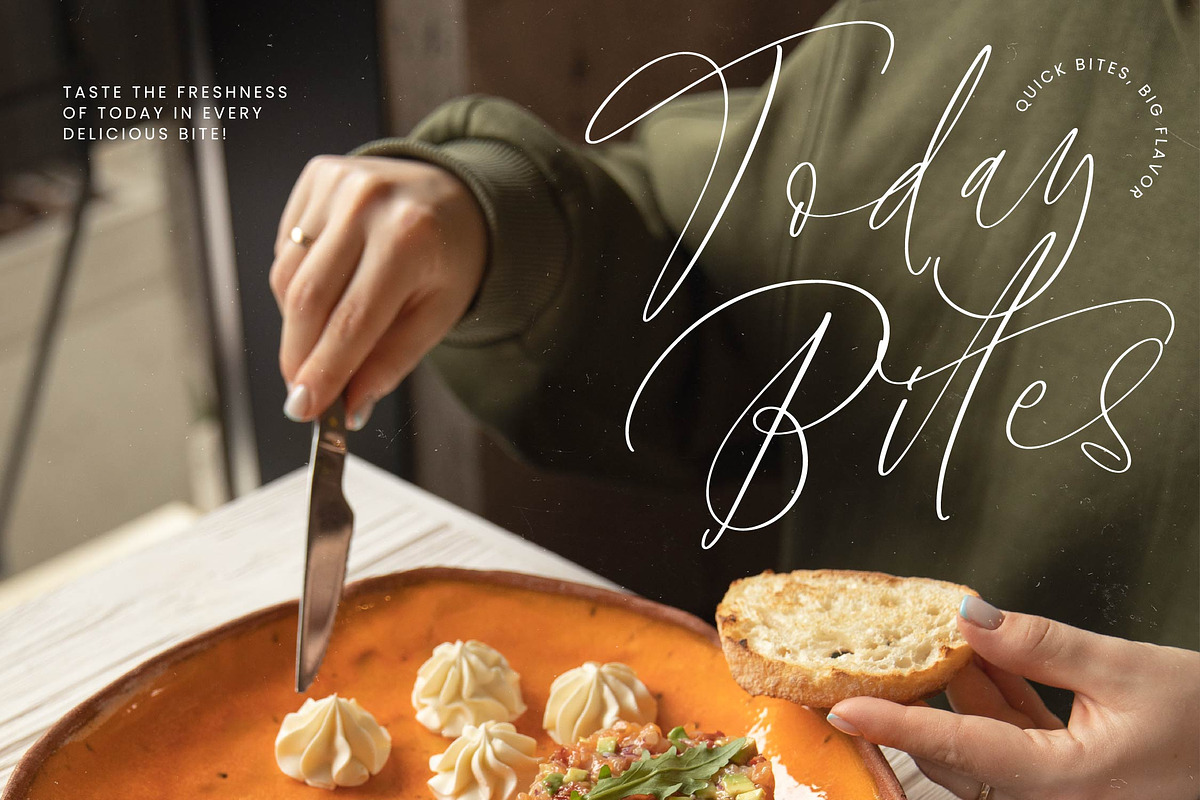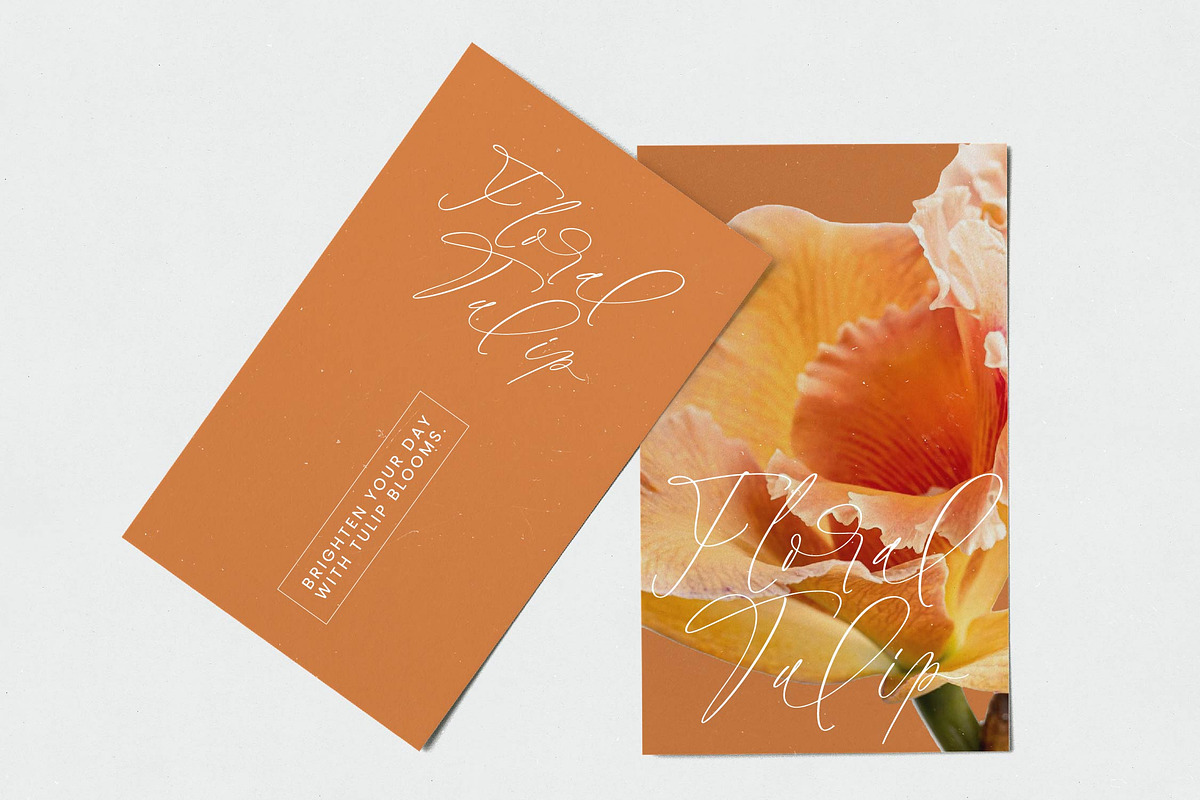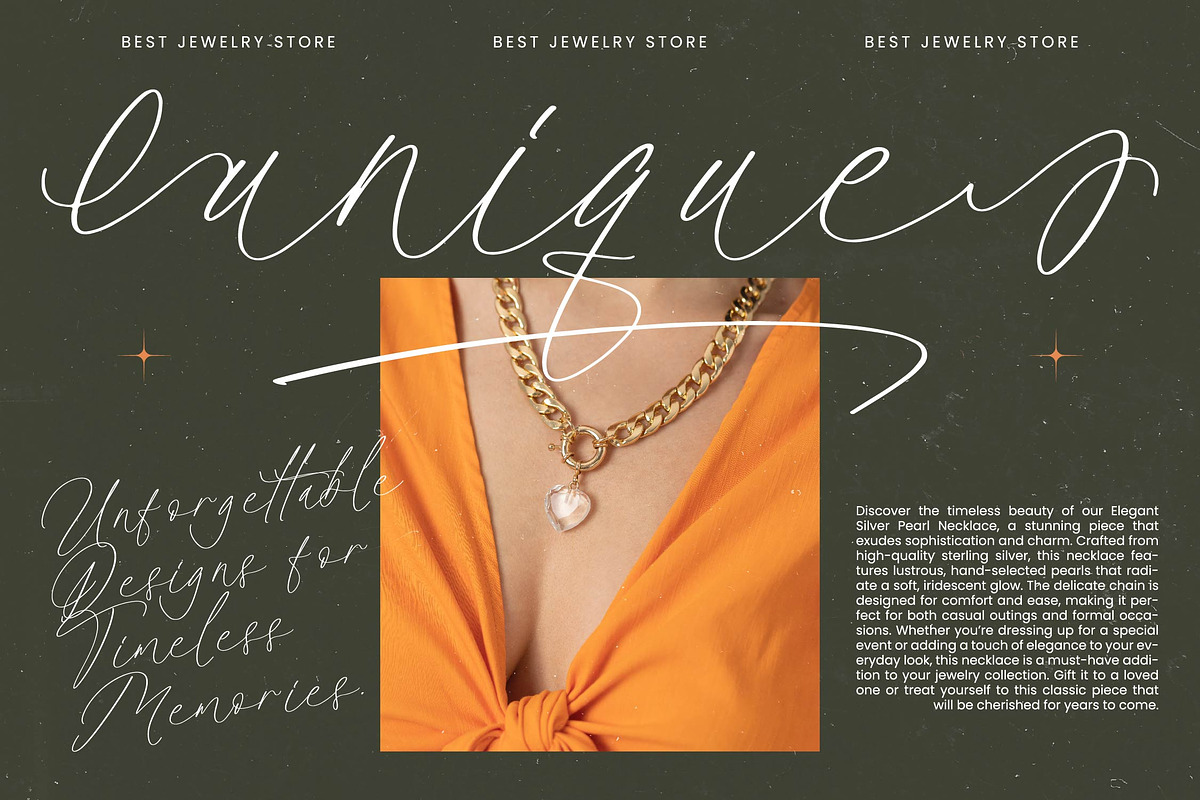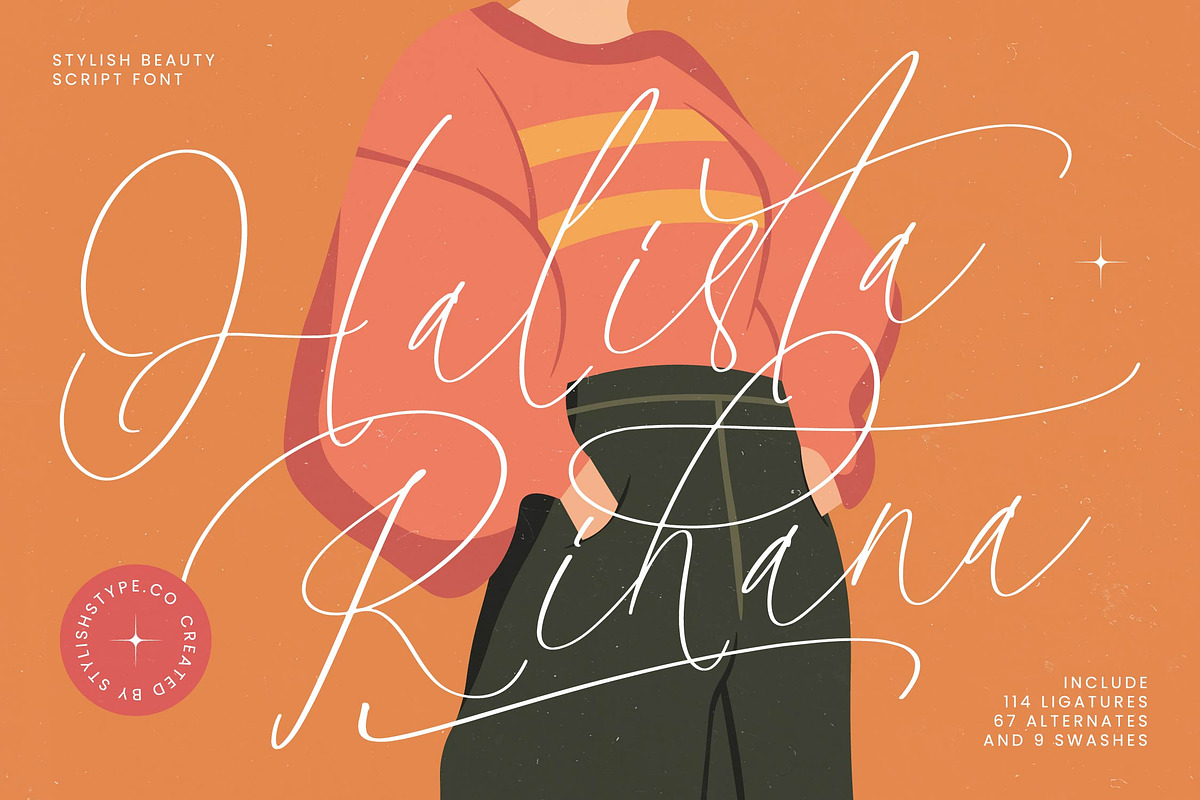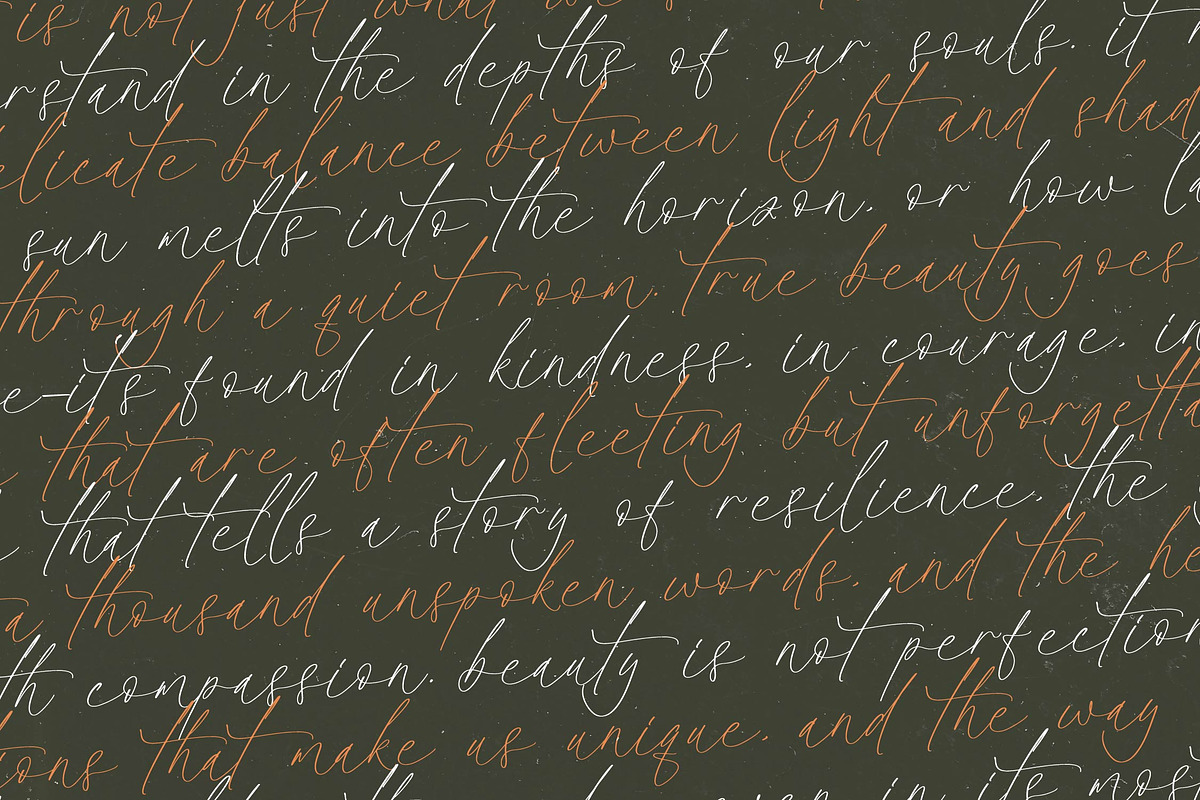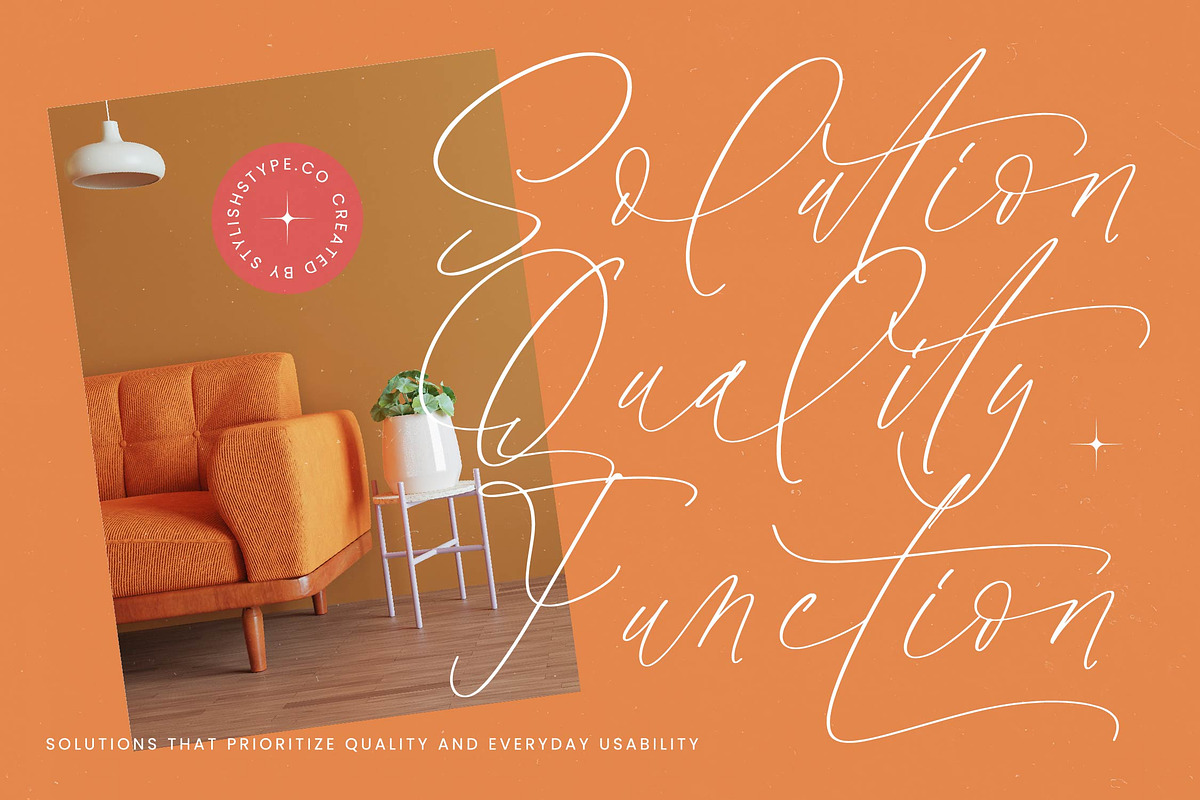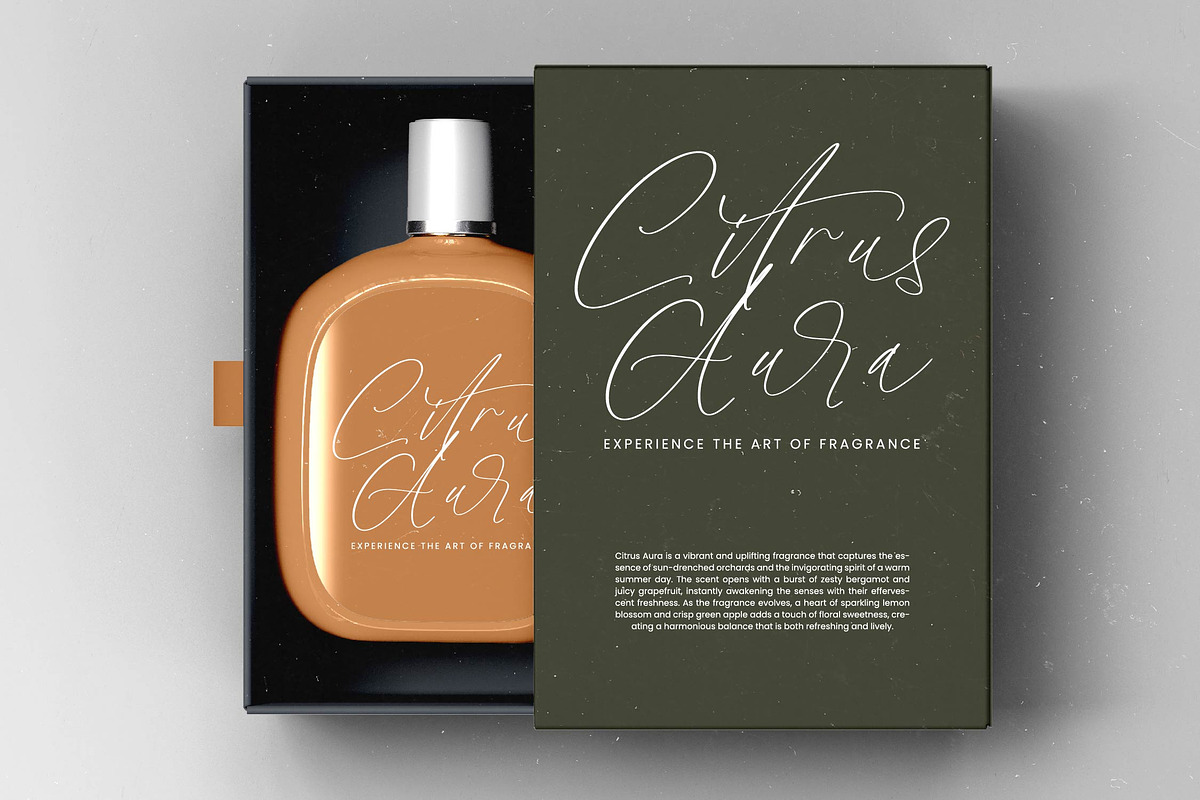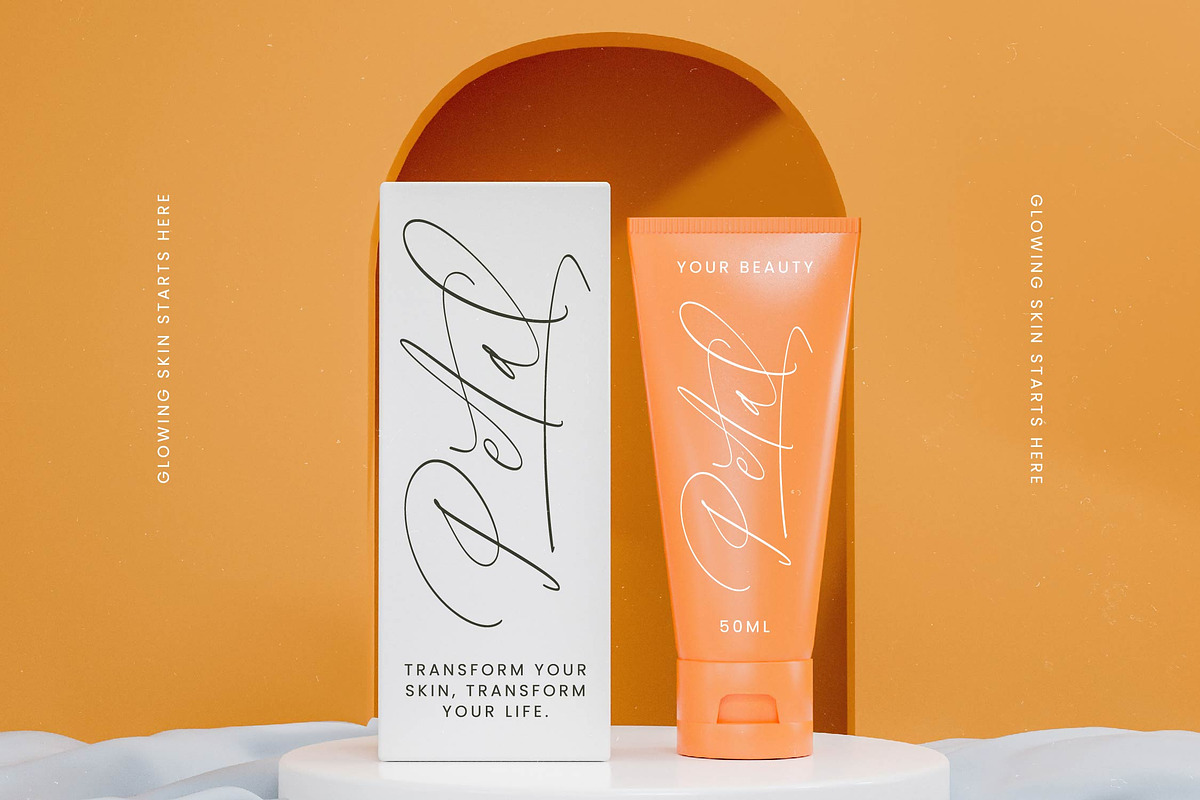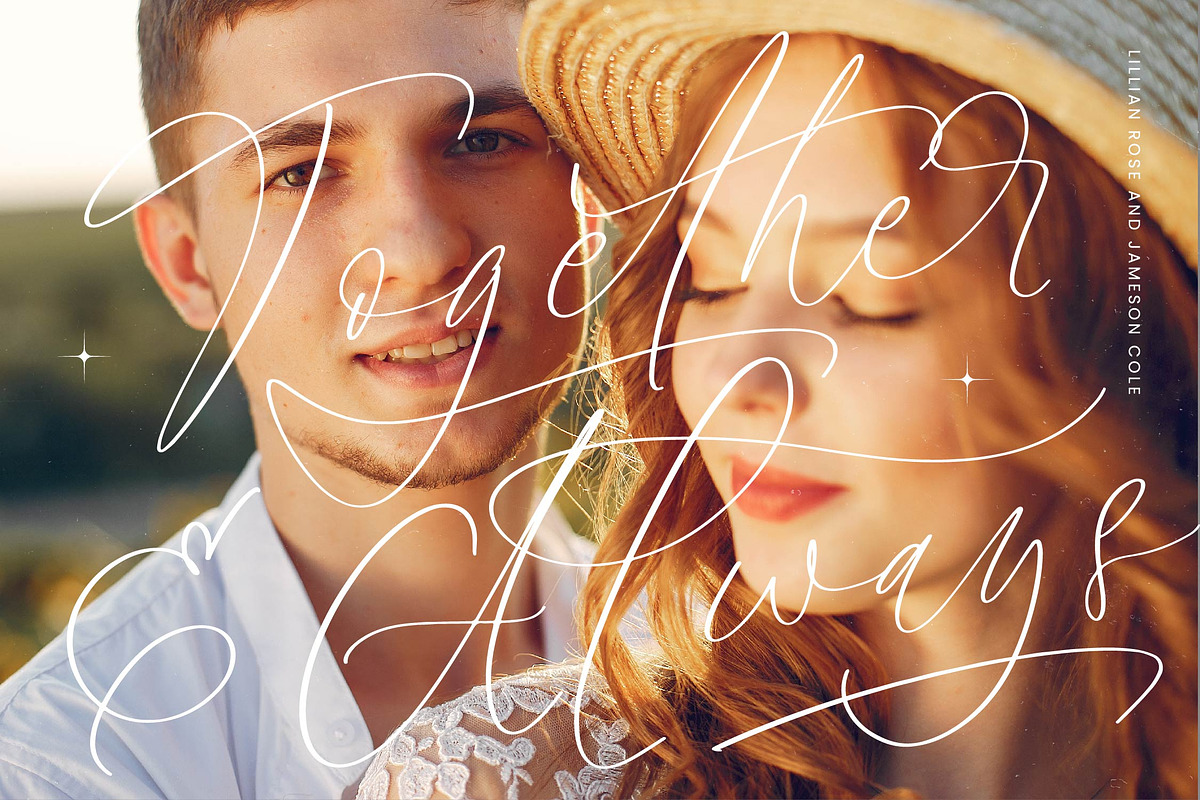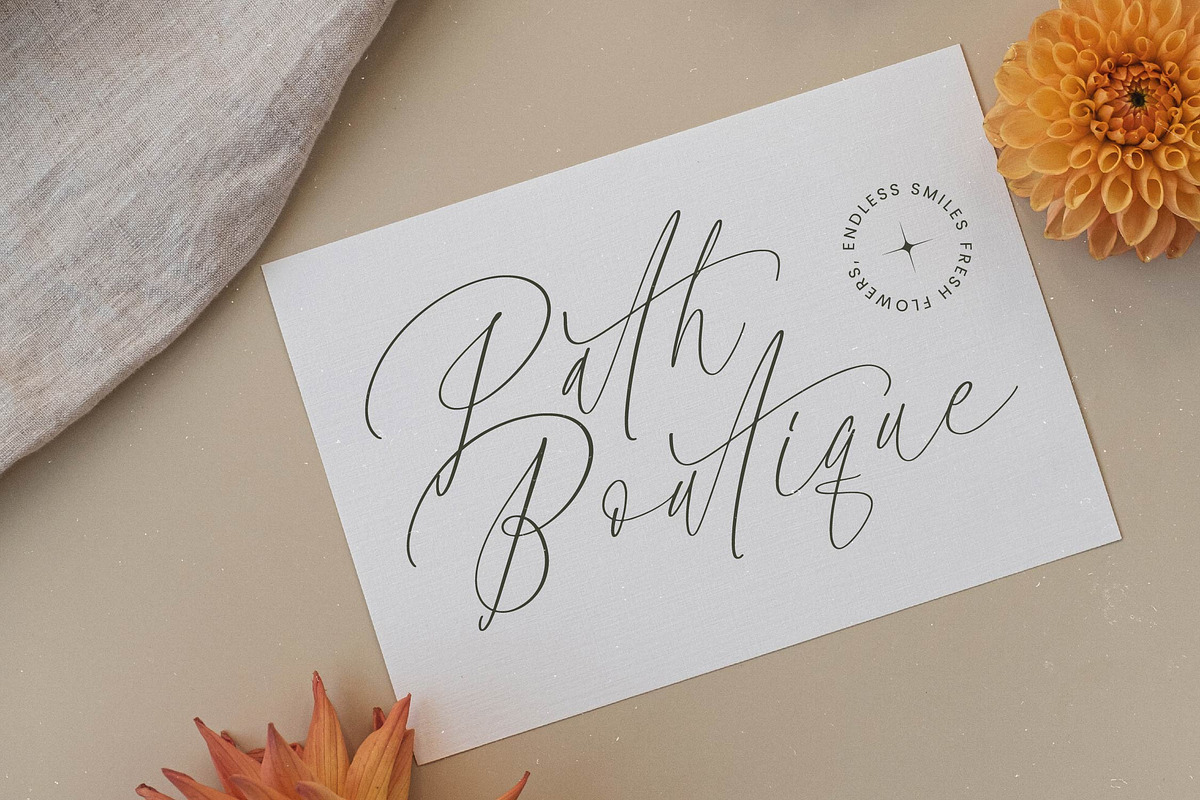
Halista Rihana Stylish Beauty Script
Halista Rihana - Stylish Beauty Script Font , from Stylishtype.Co , Suitable for any projects such as: logos, branding projects, homeware designs, product packaging, mugs, quotes, posters, shopping bags, t-shirts, book covers, name card, invitation cards, greeting cards, label, photography, watermark, special events, and all your other luxury and beautiful projects that need a Luxury Script taste.
- 114 Ligature 67 Alternates & 9 Swashes